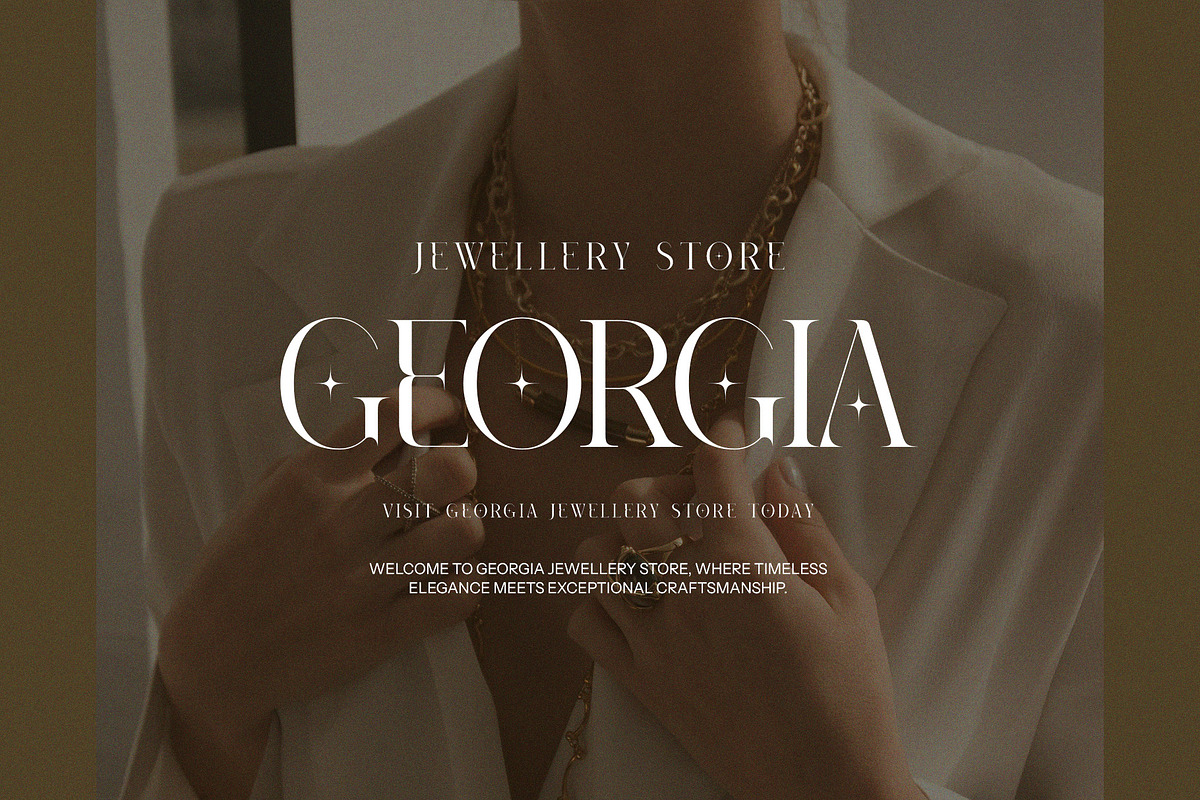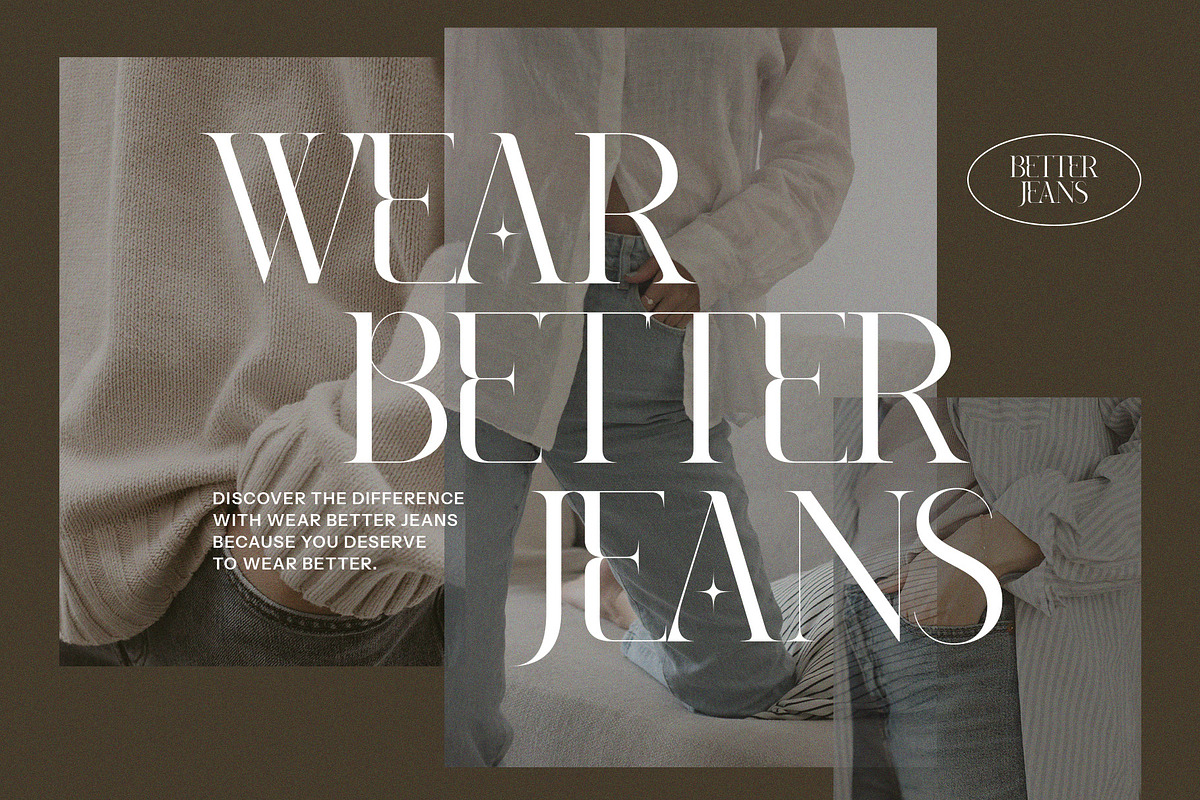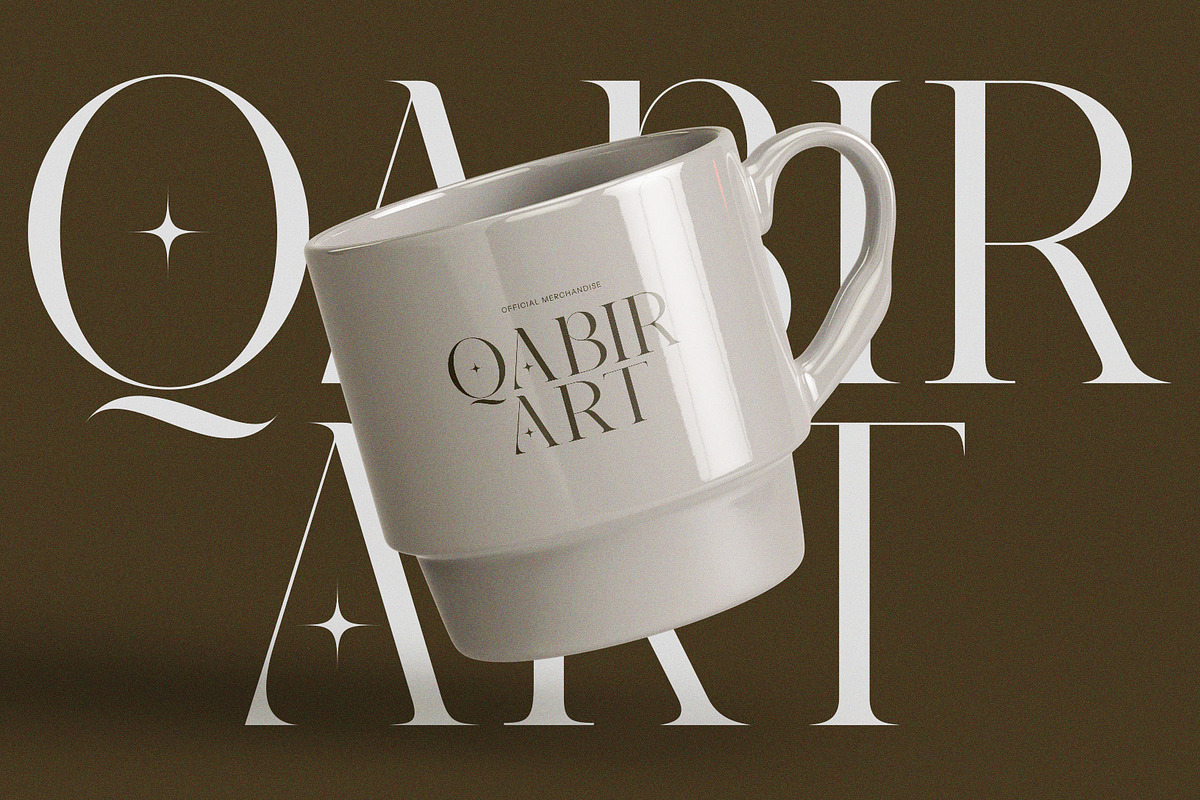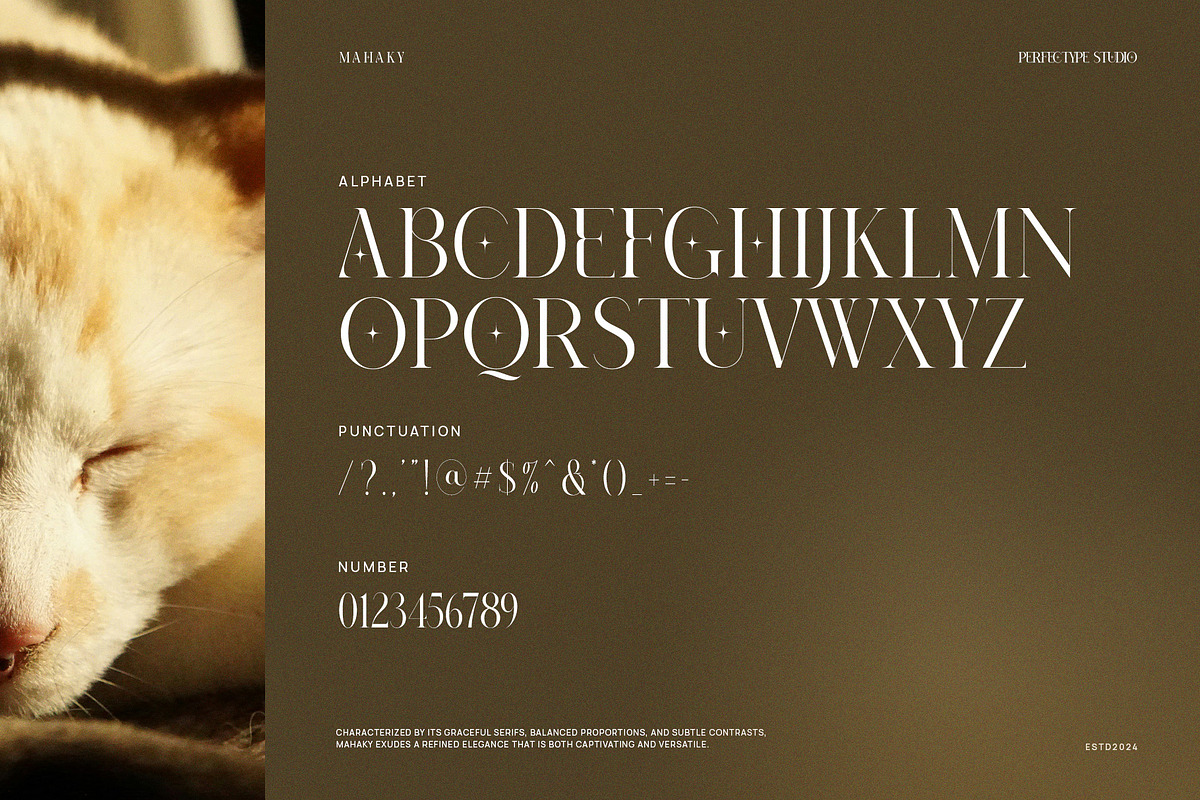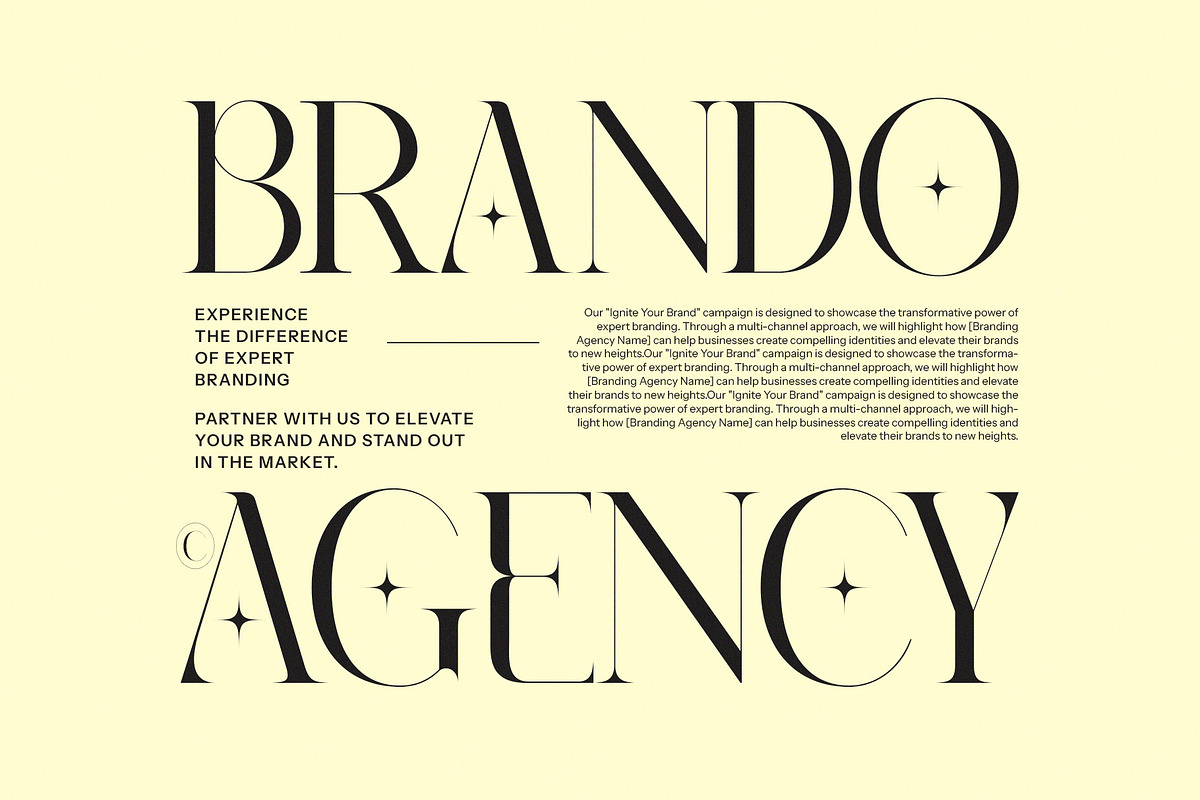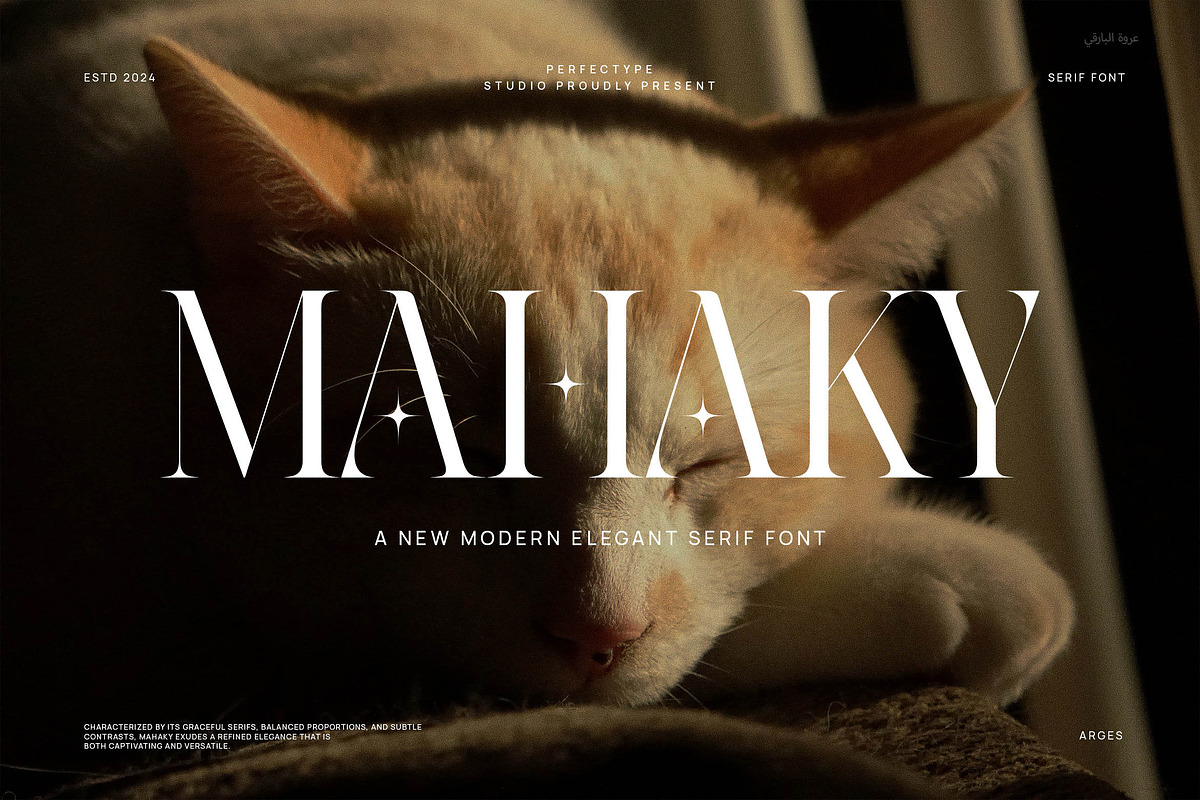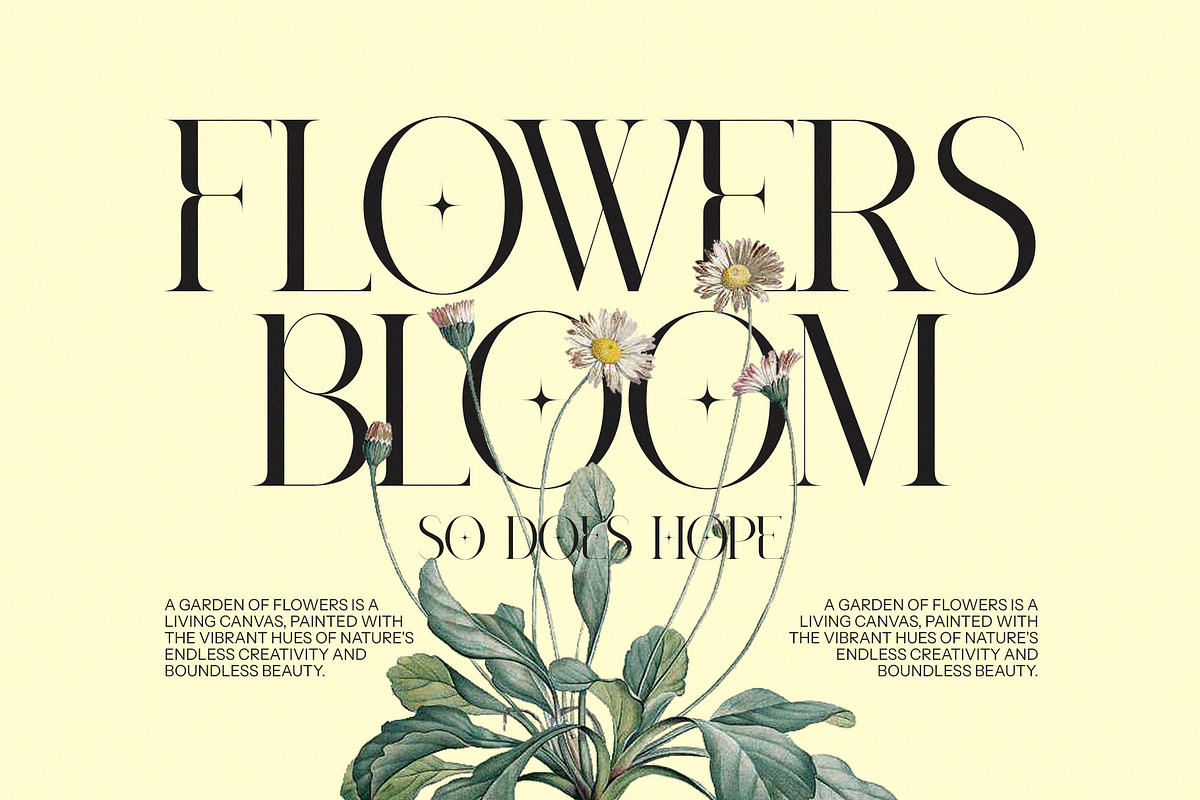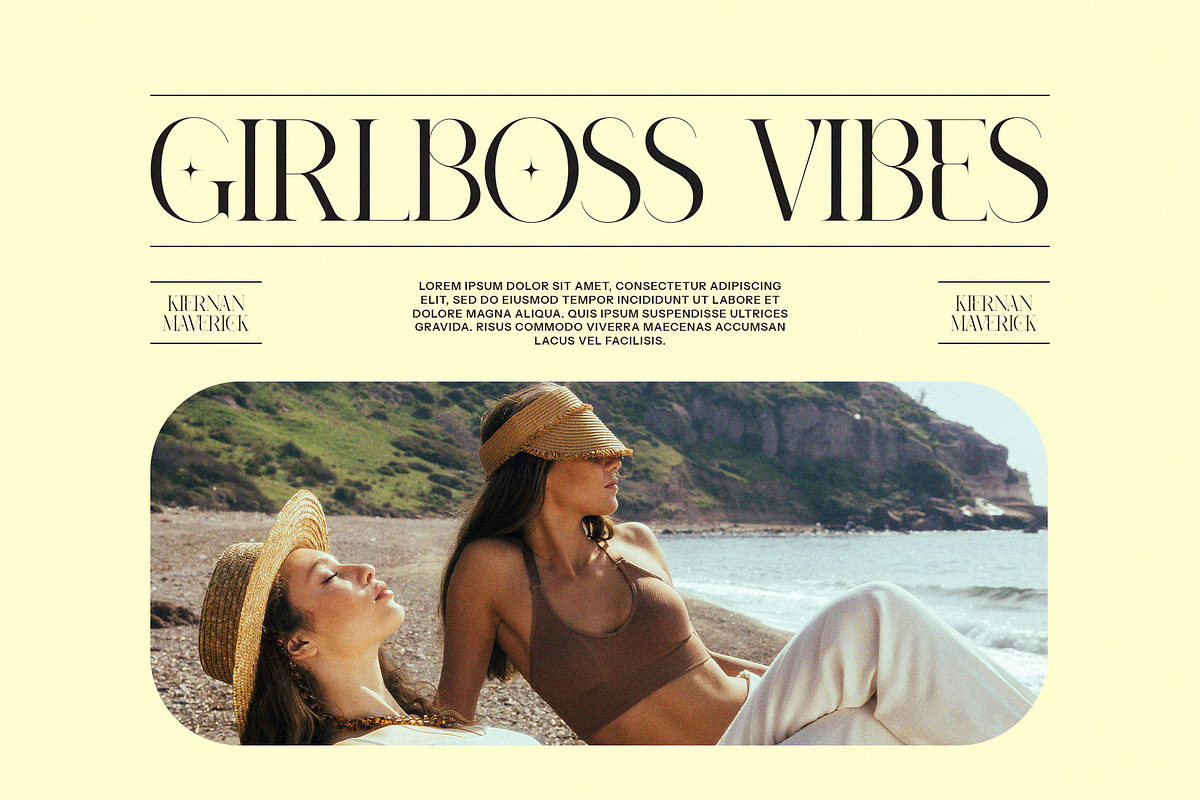
Mahaky Modern Serif Font By Perfectype
Mahaky Modern Serif Font By Perfectype by Perfectype is a font selected for branding, posters, packaging, typography.
- This font is equipped with many beautiful and unique ligature and alternate options.
Why Mahaky Modern Serif Font By Perfectype is worth a look
Mahaky Modern Serif Font By Perfectype by Perfectype fits naturally into Branding, posters, packaging, typography.